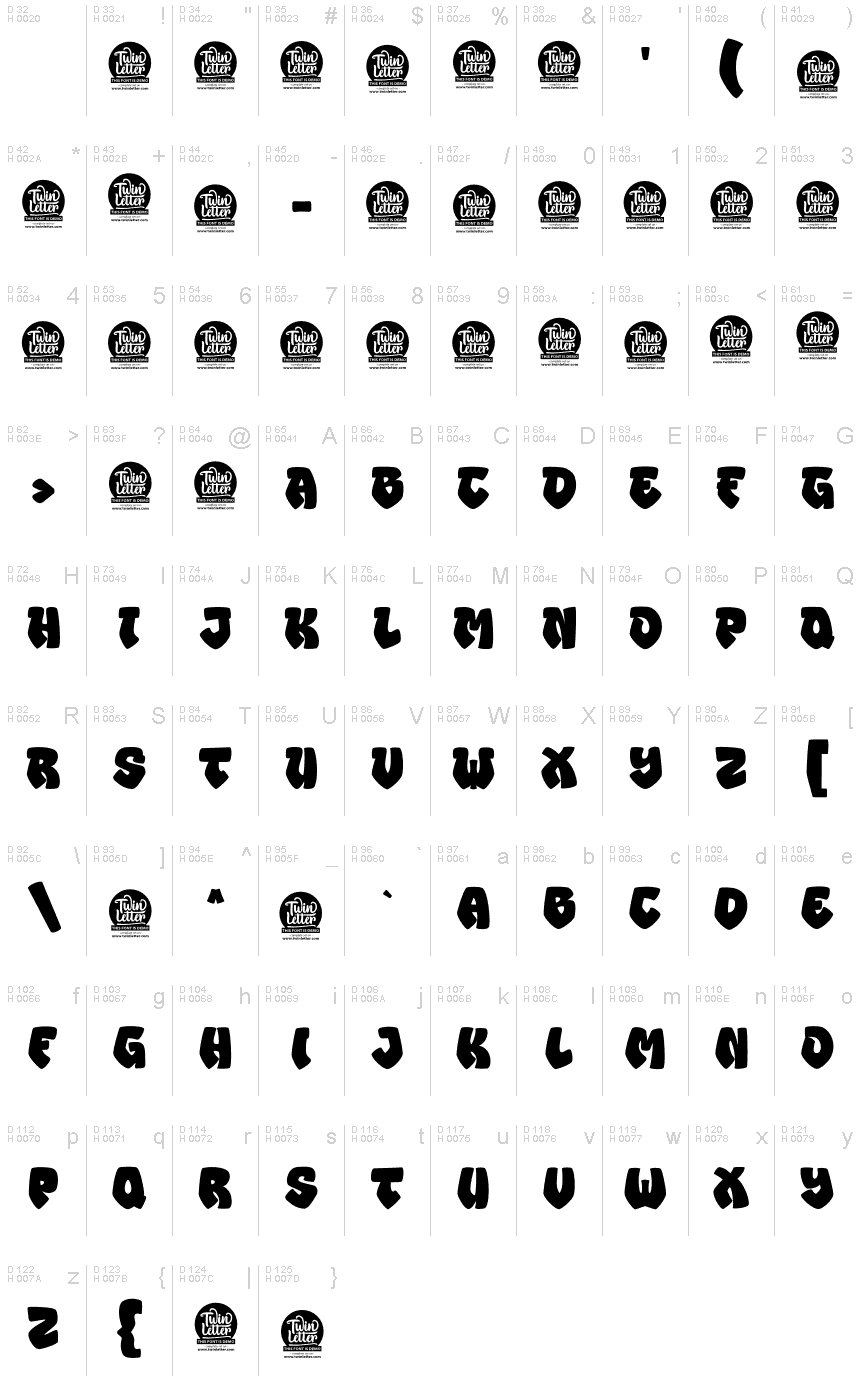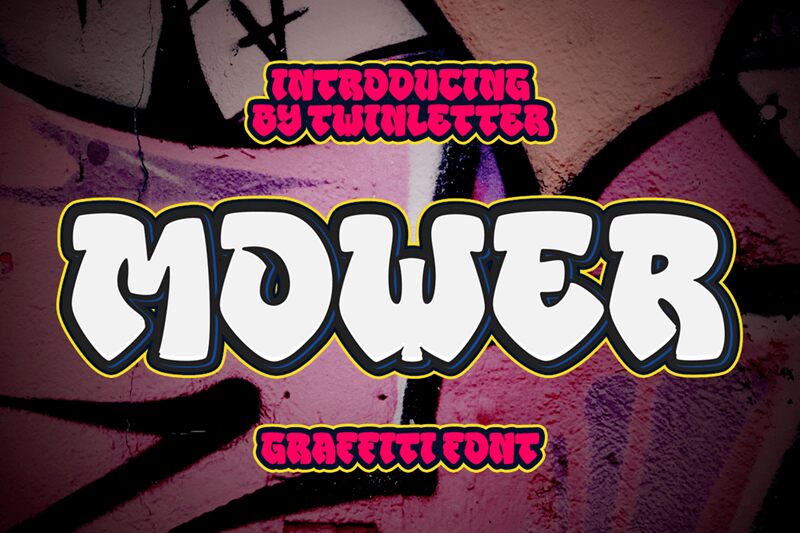
Mower font is a bold graffiti-style display font designed by Rozi of Twinletter.
It's a thematic Graffiti typeface with an attractive design. We created this typeface with a highly harmonic shape in mind, meticulously correcting the letter-spacing from one another to achieve optical harmony in all of your projects. When you utilize this typeface, your project will be transformed into something elegant and flawless.
This graffiti font is great for product logos, poster titles, headlines, packaging, film titles, logotypes, gorgeous writing, and trendy graffiti designs, among other things.